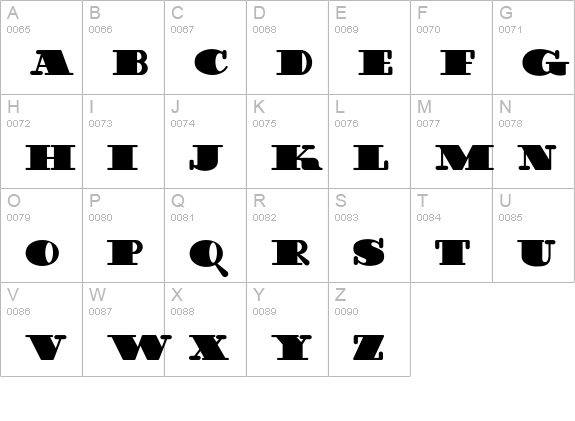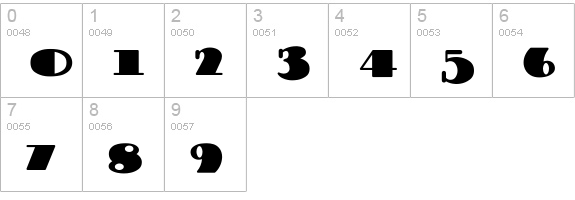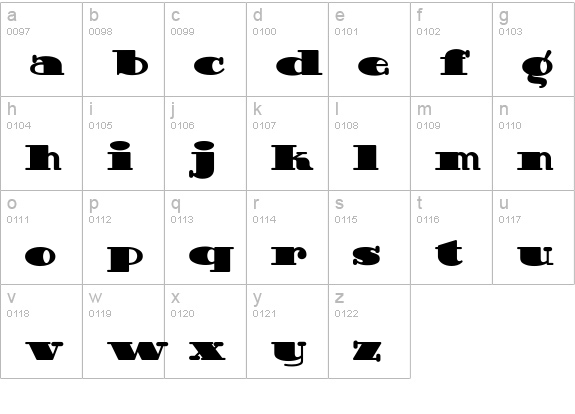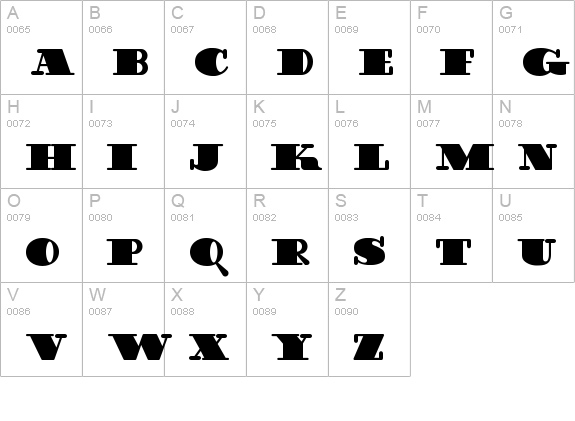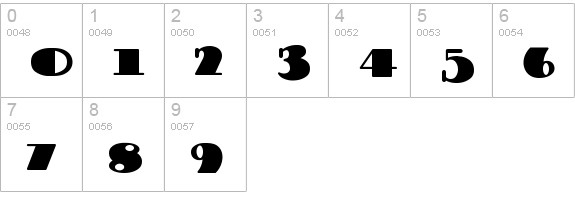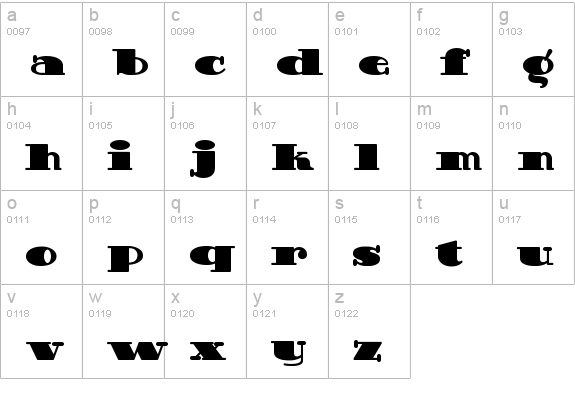
GuinnessExtraStout Font Details
The Guinness Extra Stout font is a bold and robust typeface that exudes strength and sophistication. Its thick, heavy strokes command attention and make a powerful statement on any design project. With a touch of vintage charm, this font is perfect for conveying a sense of history and tradition. What sets Guinness Extra Stout font apart is its versatility - whether used for headlines, logos, or branding materials, it never fails to make a lasting impression. The classic yet modern aesthetic of this font makes it a timeless choice for any creative endeavor. And the best part? Guinness Extra Stout font is completely free to download at FontsMarket.com, making it accessible to all designers looking to elevate their work with a touch of bold elegance. Don't miss out on this exceptional font - download it today and see the impact it can have on your projects!